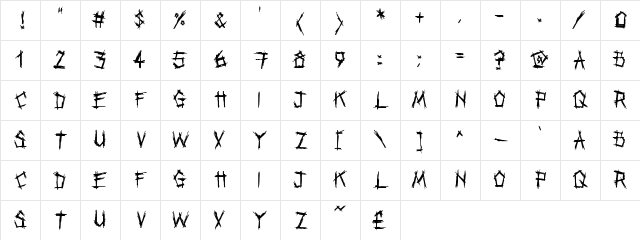
Punkband Regular Free Font
Punkband Regular
Foundry: 4Q
Designer: 4Q
Design Context for Punkband
Punkband is a composed and adaptable typeface that performs quietly and consistently across a wide range of design contexts.